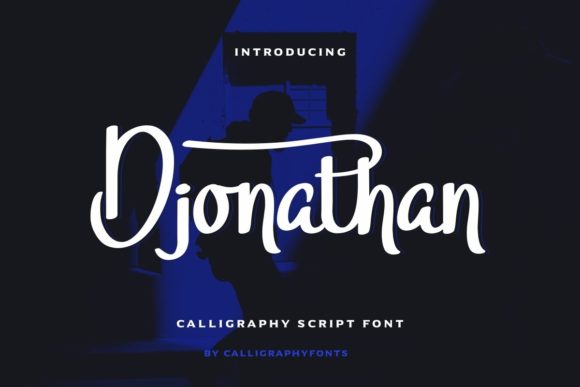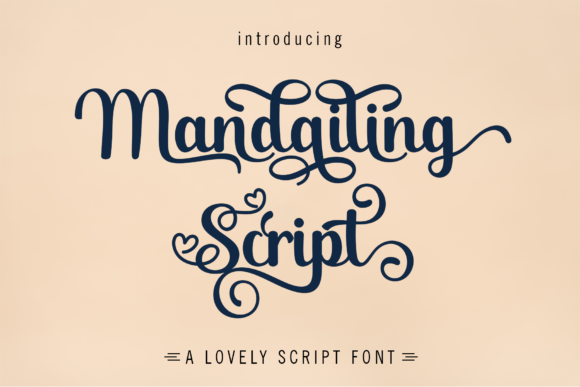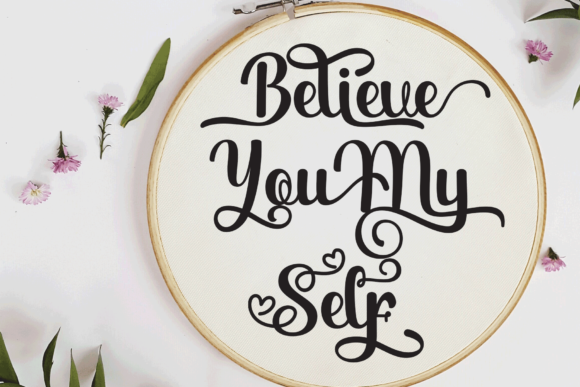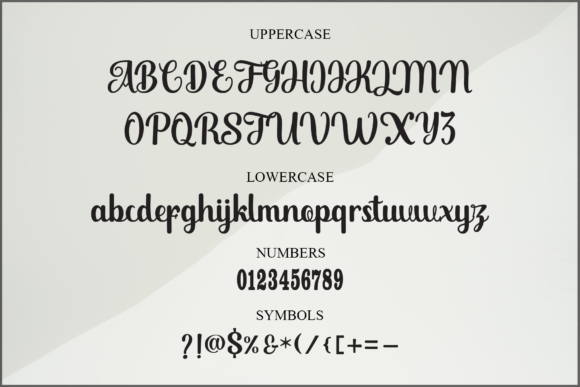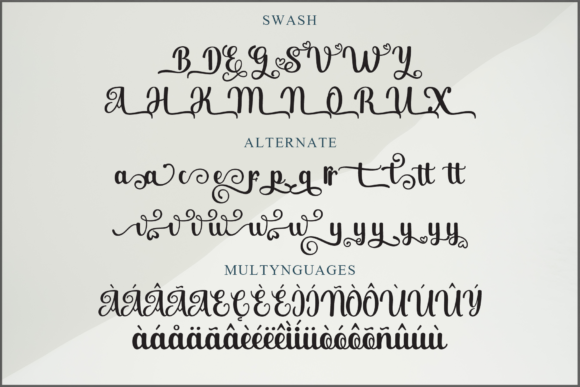
Mandailing Script Font
About Mandailing Script Font
Mandailing Script is a ravishing and detailed crafted script font. It is PUA encoded which means you can access all of the glyphs and swashes with ease!